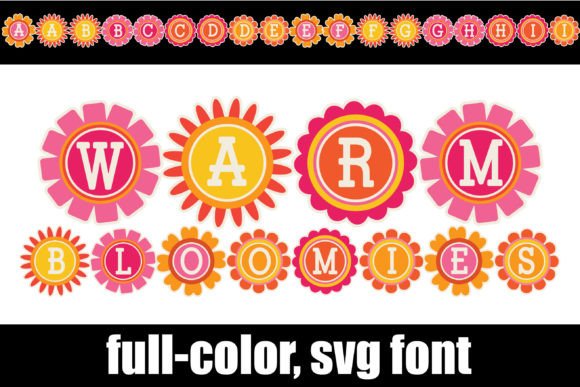
Prepare yourselves for summer with Warm Bloomies Font, a vibrant and cheerful font that radiates the warmth of summer sun and the beauty of blossoming flowers. This modern and colorful font family, brought to you by Illustration Ink, is a breath of fresh air, perfect for adding a touch of playful charm to your designs.
Step into a world of creativity and embrace the endless possibilities that await you with Warm Bloomies Font. Let your imagination run wild as you explore the world of visual storytelling, crafting designs that captivate and mesmerize. This font family is the embodiment of joy, exuberance, and effortless style, ready to transform your creative vision into a breathtaking reality.
With Warm Bloomies Font, ordinary designs become extraordinary. Witness the transformation unfold as simple words morph into captivating works of art, captivating the hearts of your audience. Whether it's an invitation that sparks anticipation, a greeting card that spreads warmth, or any creation that yearns for a cheerful touch, Warm Bloomies Font is your perfect partner.
Dive into the captivating world of Warm Bloomies Font, where imagination knows no bounds. The intricate details of each letter, nestled within delicate flowers, create a visual feast that delights the senses. Each carefully crafted character dances across the page, inviting you to immerse yourself in a realm of creativity and whimsy.
Unlock the true essence of summer with Warm Bloomies Font. Let your designs bask in the sunlight, exuding vibrant energy and positive vibes. From the first glance, your creations will radiate a sense of joy and optimism, leaving a lasting impression that lingers in the hearts of your audience.
So why wait? Embark on a creative journey with Warm Bloomies Font today. Let your designs blossom into masterpieces, reflecting the vibrancy of summer and the timeless beauty of nature. Unleash the magic within you and allow Warm Bloomies Font to ignite your creativity, transforming your designs into a celebration of color and joy.